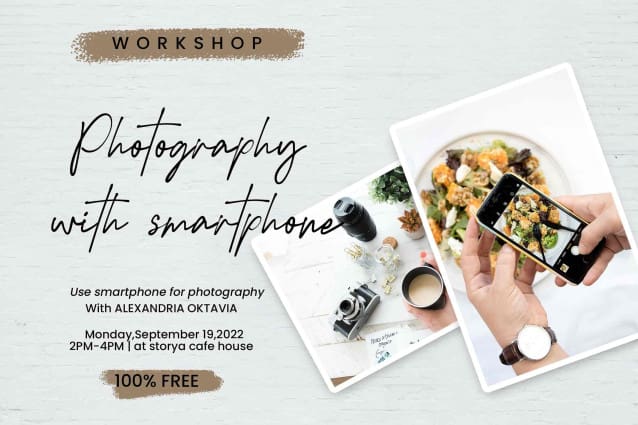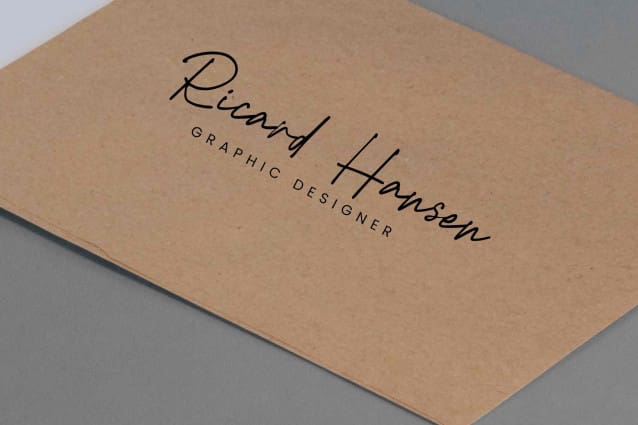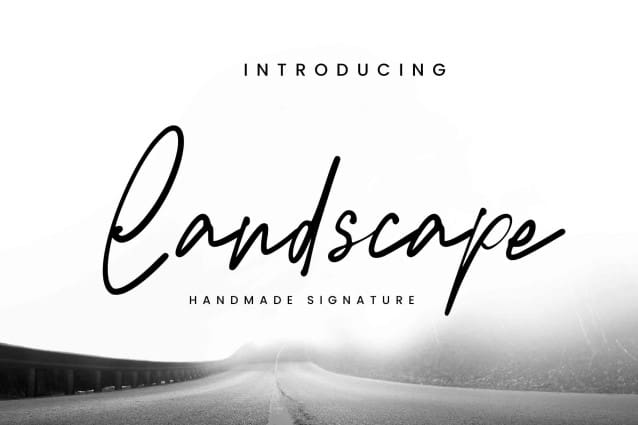
Landscape Handwritten Font
Landscape Handwritten Font is an elegant and sweet font. This font is very fun, easy to combine for various designs, its minimalist style makes it look like a luxurious and classy font. It is suitable for photography, social media, logos, magazines and many more